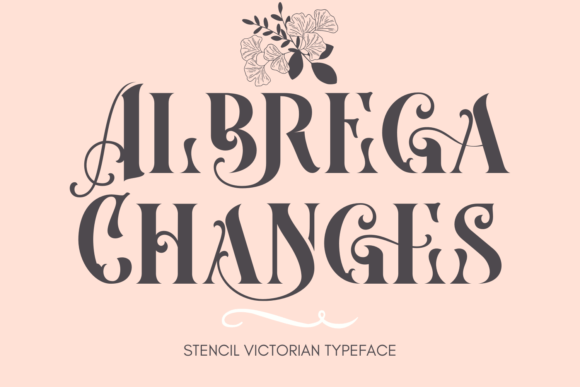
Albrega Changes is a stylish serif typeface with splendid ligature & alternates. This typeface can also be categorized in a more modern Victorian style by carrying a slight stencil modification. This font is also an all-caps font with different letters and character heights. It is suitable for any branding purpose. This font is PUA encoded, which means you can access all of the glyphs and swashes with ease!
Albrega Changes Font